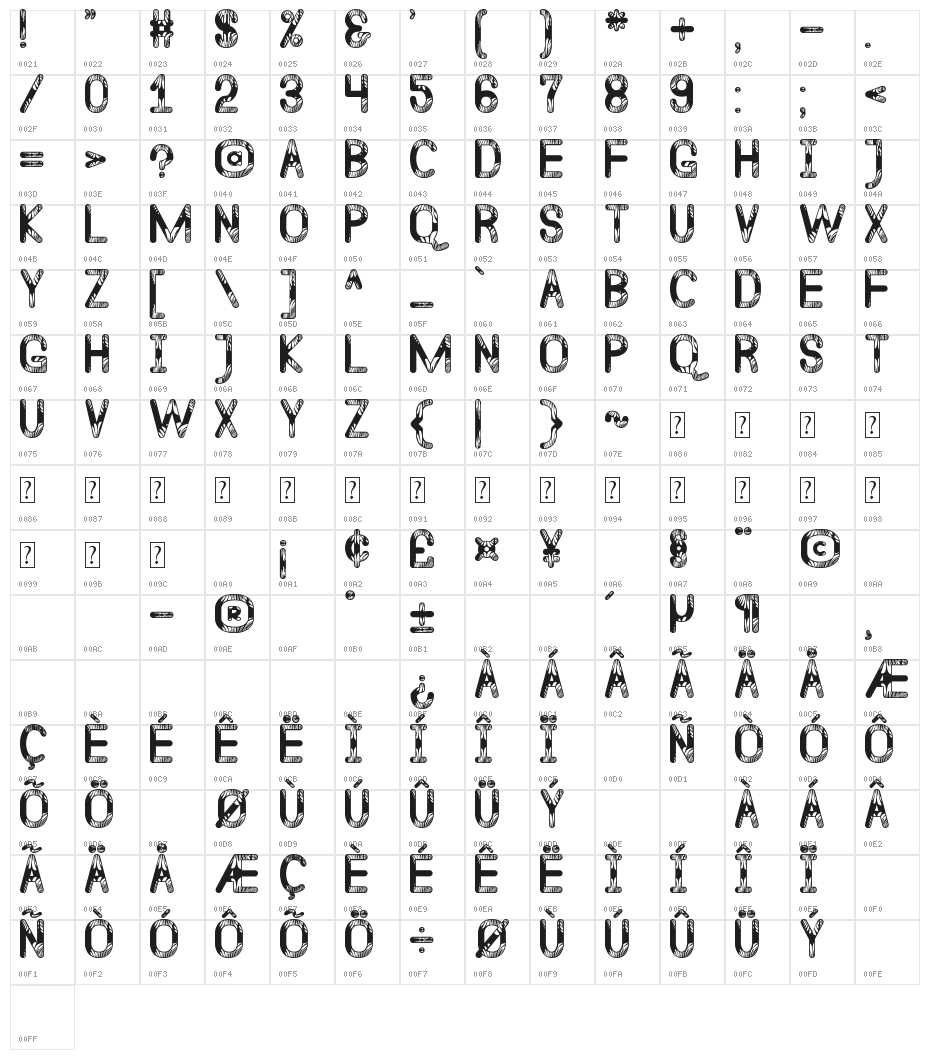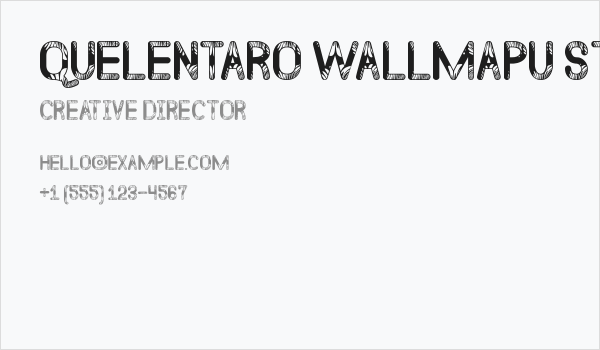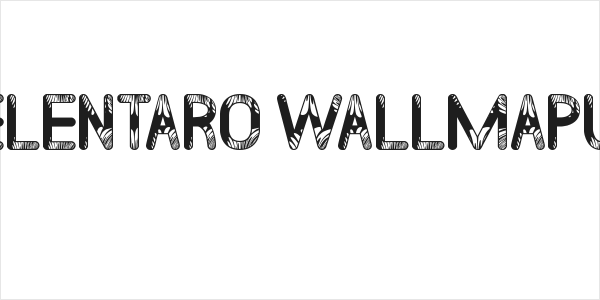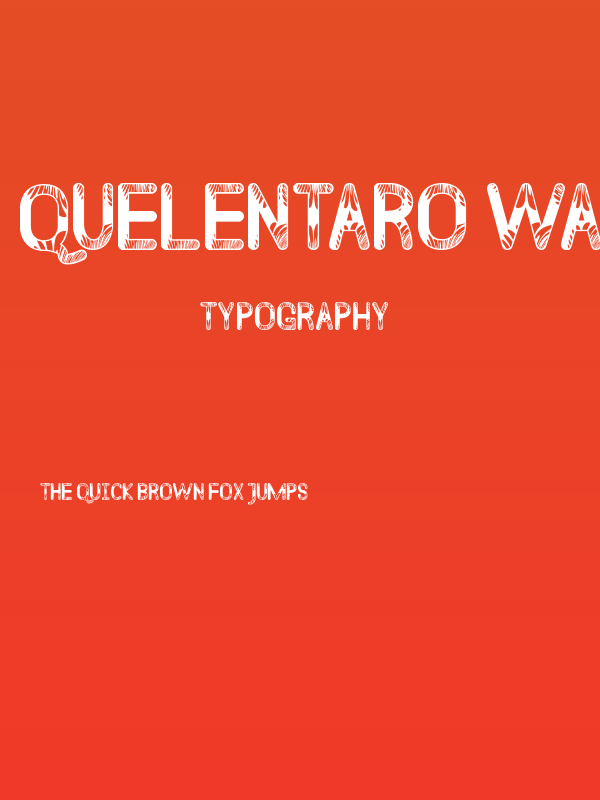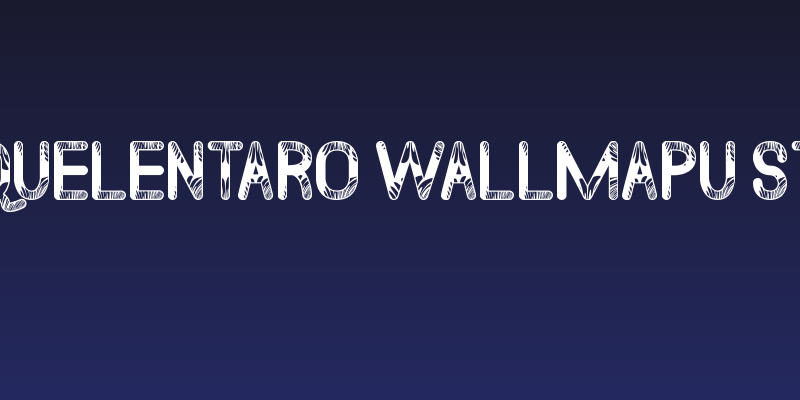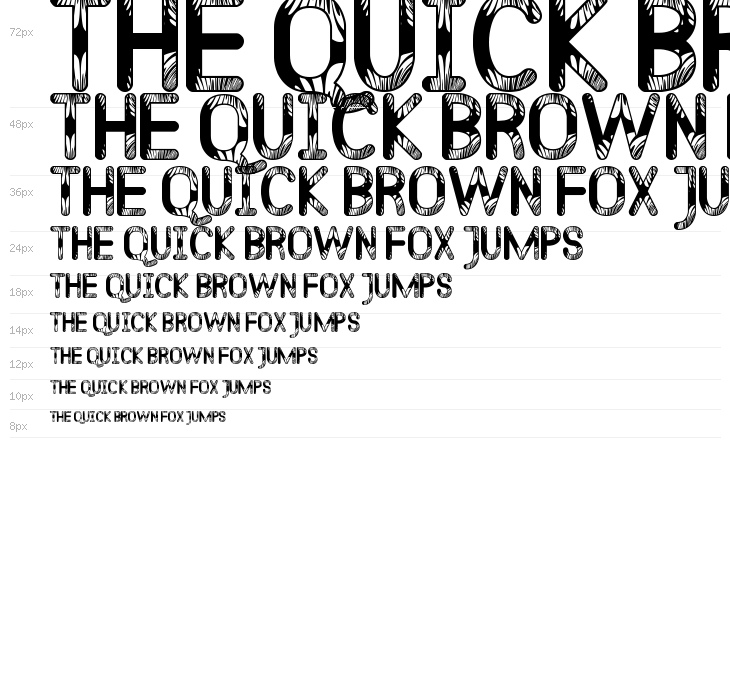
Quelentaro Wallmapu St Font
Quelentaro Wallmapu St Description
This font features a bold and playful design with a hand-drawn aesthetic. Each character is filled with intricate line patterns that create a textured, sketch-like appearance. The uppercase and lowercase letters maintain a consistent style, with rounded edges and a slightly irregular form that adds to the handcrafted feel. The numbers and special characters follow the same artistic approach, ensuring a cohesive look across all glyphs. This font stands out with its unique artistic flair, making it ideal for projects that require a touch of creativity and individuality.
| Proposed Projects | Ideal for creative projects such as posters, invitations, and branding that require a unique, artistic touch. |